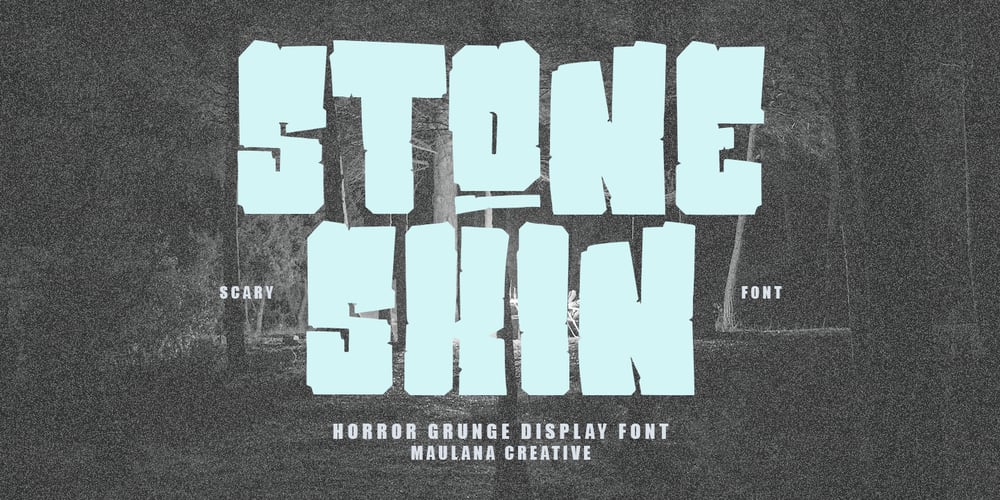
MC Stone Skin Font Family was designed by Gilang Maulana and published by Maulana Creative. MC Stone Skin contains 1 styles and family package options. Stone Skin horror grunge font, fun character with alternates to give you an extra creative work. Stone Skin horror grunge font support multilingual language.Many Thanks,Maulana Creative